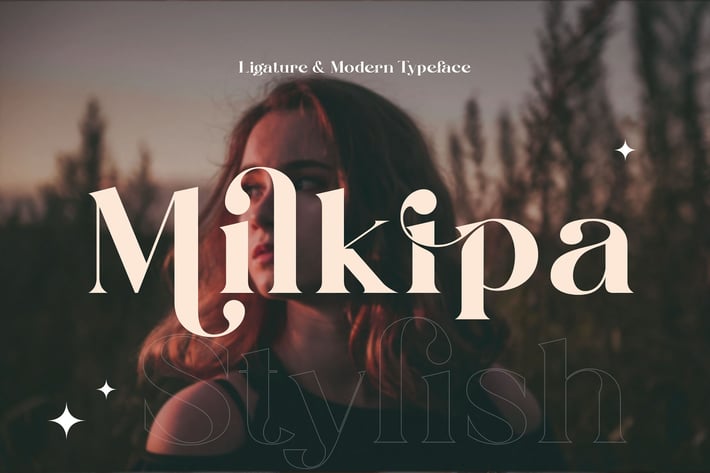
Milkipa Stylish Font
Milkipack Stylish Ligature Typeface inspired by the famous minimalist logo perfect for the purposes of designing templates, brochures, videos, advertising branding, logos and more.
+ Ligatures